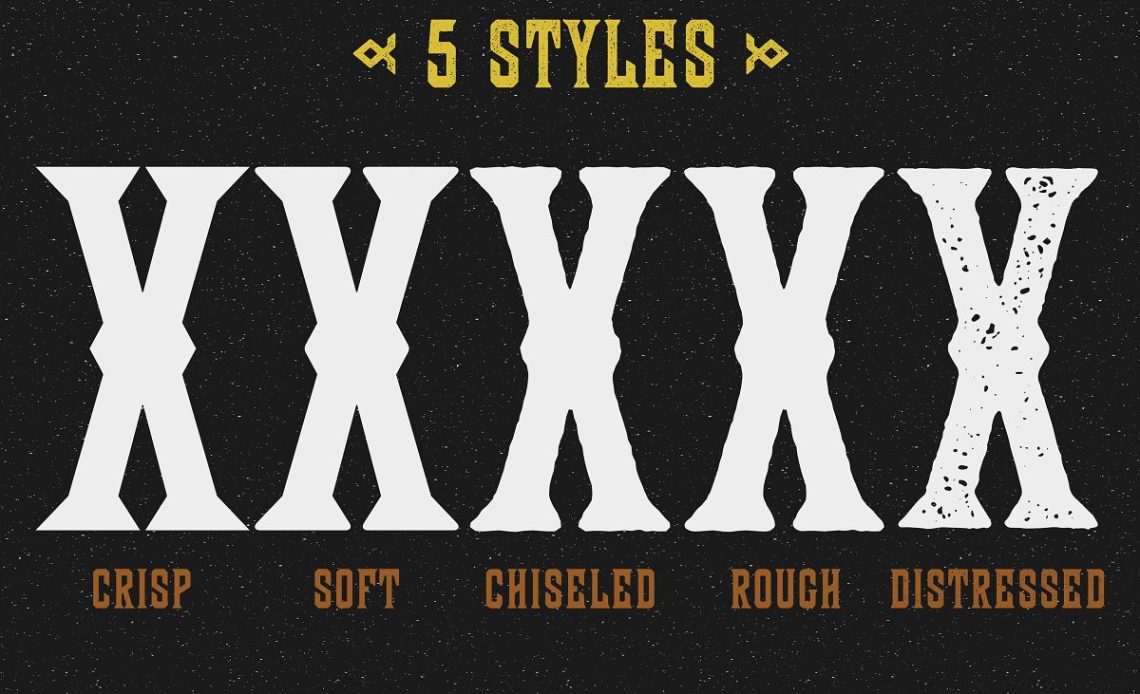
Are you looking for the best font for your TV display? Look no further than Wooderson Font, a beautiful serif typeface created by the talented Paul Sirmon. This font family is based on old wood block type, featuring 267 handcrafted glyphs that have been obsessively redrawn and updated for the modern world.
Wooderson Font offers five unique styles to suit any project: Crisp for sharp lines and DIY projects, Soft for a more delicate touch, Chiseled for angular roughness, Rough for a smoothed-out roughness, and Distressed for a perfectly imperfect look.
But that's not all! Wooderson Font also includes a variety of additional features such as ornaments, alternate style caps, small caps, alternate small caps, and discretionary ligatures to add flair to your designs.
Whether you're a graphic designer, a blogger, or a small business owner, Wooderson Font is the perfect choice to add personality and style to your projects. Its captivating and eye-catching design will grab your audience's attention and keep them engaged.